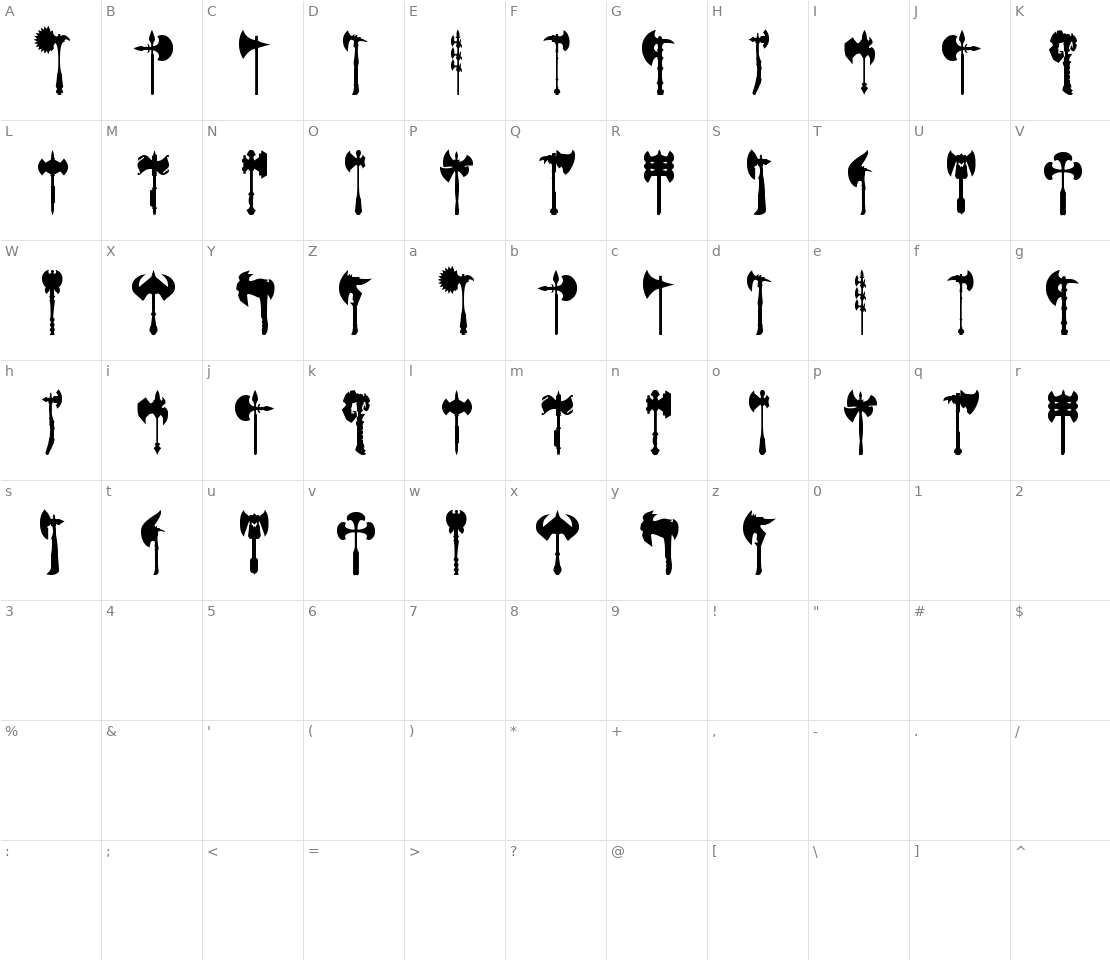
Axe for warrior
Axe for warrior is a symbol font from weknow consisting of medieval weapon silhouettes, primarily axes and warrior-related imagery. It's the kind of dingbat set that fills a specific niche in fantasy and RPG design, useful for game UI elements, tabletop character sheets, map icons, or decorative accents in medieval-themed projects. Not a text face at all, just a clean toolkit of weapon graphics mapped to the keyboard.